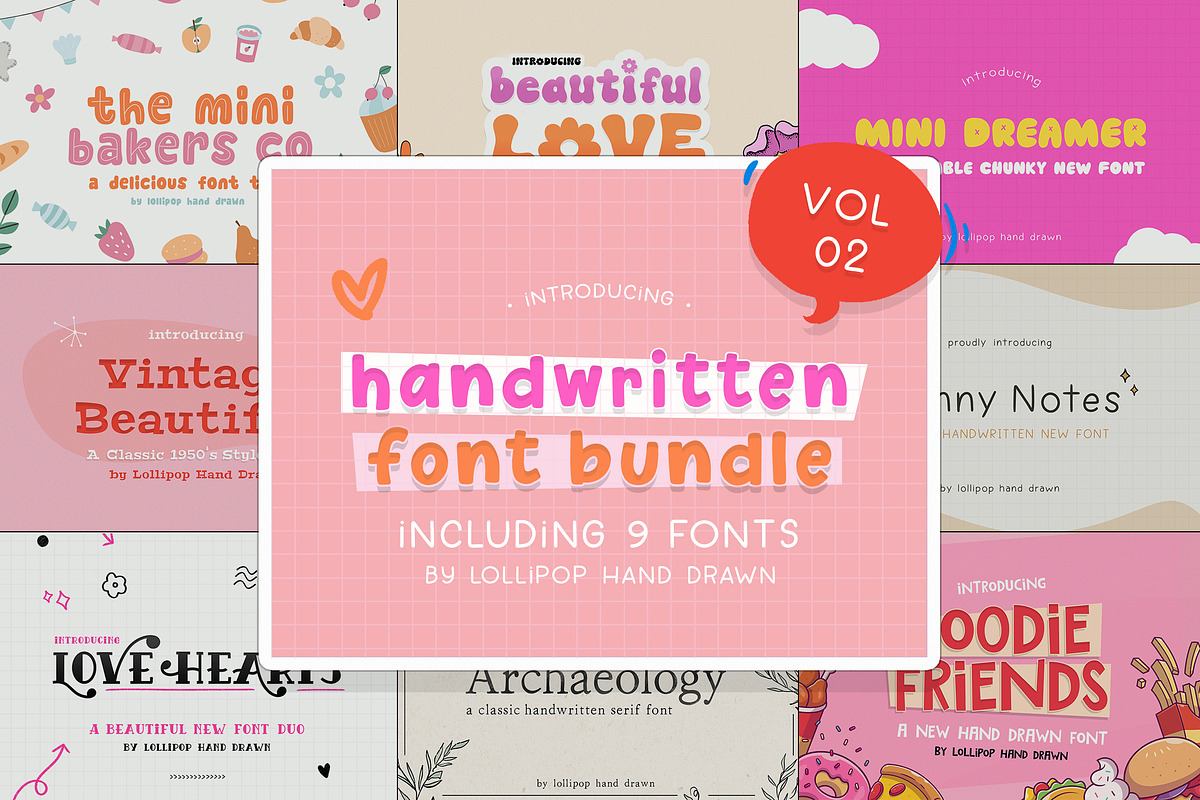
The Handwritten Font Bundle (Vol 02) Free Download is a thoughtfully curated collection of handcrafted script fonts, perfect for adding a personal, creative touch to your design projects. This volume includes a diverse range of handwriting styles—from casual and playful to elegant and refined—making it ideal for branding, invitations, social media posts, logos, quotes, and stationery.
Each font in this bundle brings its own personality, allowing designers to mix and match for a truly custom look. Whether you're designing for weddings, lifestyle brands, or artistic content, this bundle offers the versatility you need in one easy download.
Designers love The Handwritten Font Bundle (Vol 02) for its variety, warmth, and value. Ready to elevate your font library? Download The Handwritten Font Bundle (Vol 02) Free Download and add handcrafted charm to every project.